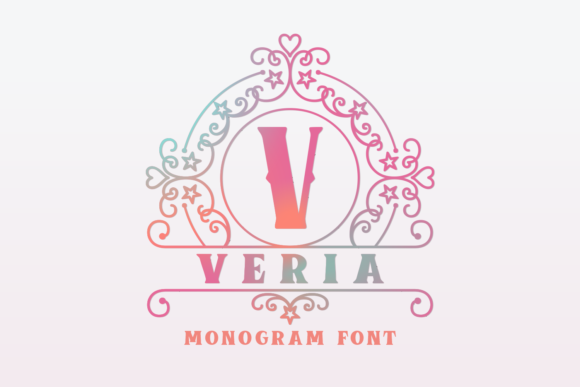
Introducing Veria Font: An Enchanting Decorative Typeface for Creative Expression
Journey into the realm of visual enchantment with Veria Font, a captivating decorative font that will ignite your imagination and transform your artistic creations. This exquisite typeface boasts an array of mesmerizing ornaments that dance across your designs, adding a touch of timeless elegance and sophistication like a symphony of flowing ink.
With Veria, you can weave tales of love, joy, and celebration through your custom-designed wedding invitations, imbuing each word with a palpable sense of heartfelt emotion. Envision your guests' eyes sparkling with delight as they unravel the intricate patterns and flourishes that adorn your heartfelt message.
The versatile Veria Font lends its artistry to an array of creative endeavors, from captivating social media posts that demand attention to exquisitely crafted stationary art that speaks to the heart. In the realm of digital artistry, Veria's enchanting glyphs and swashes dance across the screen, captivating audiences with their delicate beauty and playful charm.
Let Veria be your guiding light as you craft heartfelt greeting cards that carry your warmest sentiments. The font's intricate details and elegant curves harmoniously blend, transforming your messages of love, friendship, and gratitude into tangible works of art.
Veria Font: The Font That Speaks to Your Soul
With Veria Font, you possess the power to unlock the gates of creativity and share your unique vision with the world. Delve into the depths of your imagination and unveil masterpieces that reflect the boundless tapestry of your soul.
In Veria, you'll find a font that resonates with your emotions, a faithful companion in your creative journey. It's a font that speaks to your heart and soul, inviting you to express your innermost thoughts and feelings through the medium of art.
Welcome Veria Font into your creative arsenal and embark on a transformative artistic journey. Let your imagination soar as you create breathtaking designs that capture the essence of beauty, love, and boundless creativity.